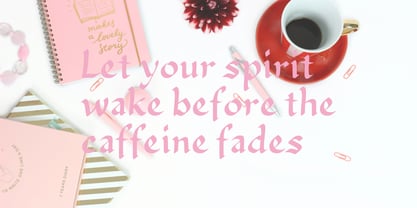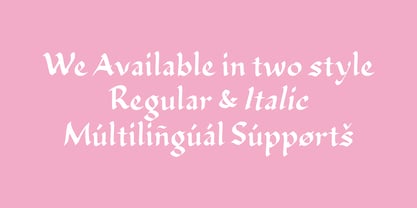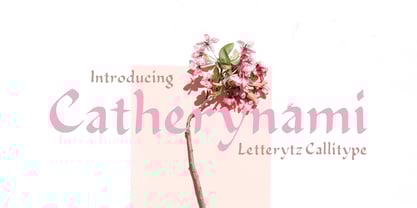
Catherynami
by Letterytz CalliType
The Catherynami Font Family was designed by Wahyu Eka Prasetya, Dian Angga Marytama and published by Letterytz CalliType. Catherynami contains 2 styles and family package options.
Catherynami – Regular & Italic
Meet Catherynami, a romantic serif typeface with soft curves and elegant contrast .perfect for designs that whisper grace and charm.
With its refined strokes and subtly vintage soul, Catherynami Regular offers a classic beauty that feels both timeless and modern. The Italic version adds a gentle rhythm and emotional flow, ideal for expressive titles, quotes, or heartfelt branding.
Drawing inspiration from calligraphic nuances and delicate editorial styles, Catherynami is designed to elevate your compositions with a sense of poise and personality.
• Catherynami Regular
• Catherynami Italic
• Full Uppercase & Lowercase Alphabet
• Punctuation, Numbers, and Symbols
• Supports Multilingual Characters
Ideal for:
• Feminine Branding & Editorials
• Wedding Invitations & Stationery
• Elegant Packaging & Logos
• Book Covers, Poetry, and Quotes
• Fashion & Lifestyle Projects
Catherynami is more than just a font — it's a typographic dance of grace and romance. Let your words bloom in style.